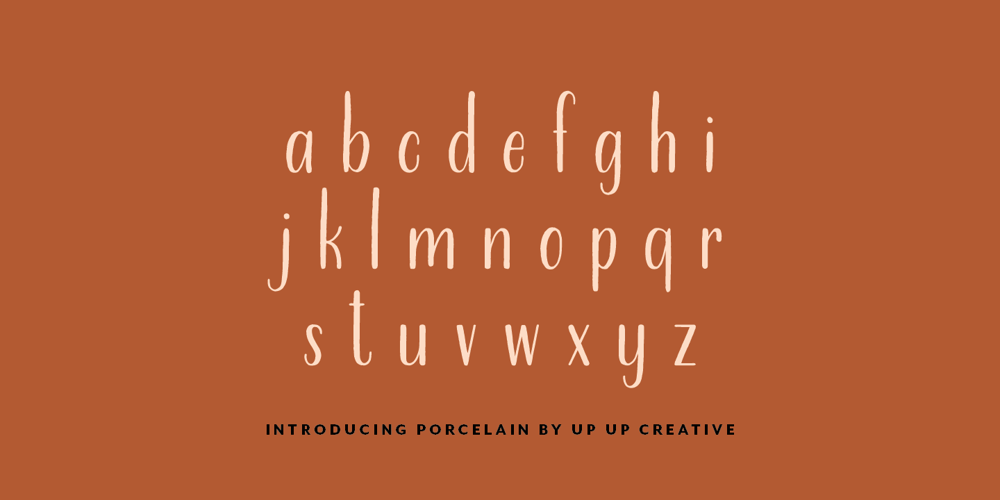
Porcelain Font Family was designed by Julie Green and published by Up Up Creative. Porcelain contains 1 styles and family package options. Introducing Porcelain, a hand-lettered condensed sans serif font with subtle dip-pen texture and some fun OpenType features. Porcelain is perfect for invitations, branding, and editorial design and can be dressed up or down depending on your needs. Porcelain comes with more than 430 glyphs and includes OpenType features like stylistic sets, multilingual support (including multiple currency symbols), and discretionary ligatures. The OpenType features can be very easily accessed by using OpenType-savvy programs such as Adobe Illustrator and Adobe InDesign. (To access these awesome features in Microsoft Word, you’ll need to get comfortable with the advanced tab of Word’s font menu. If you need help with this, ask me!)